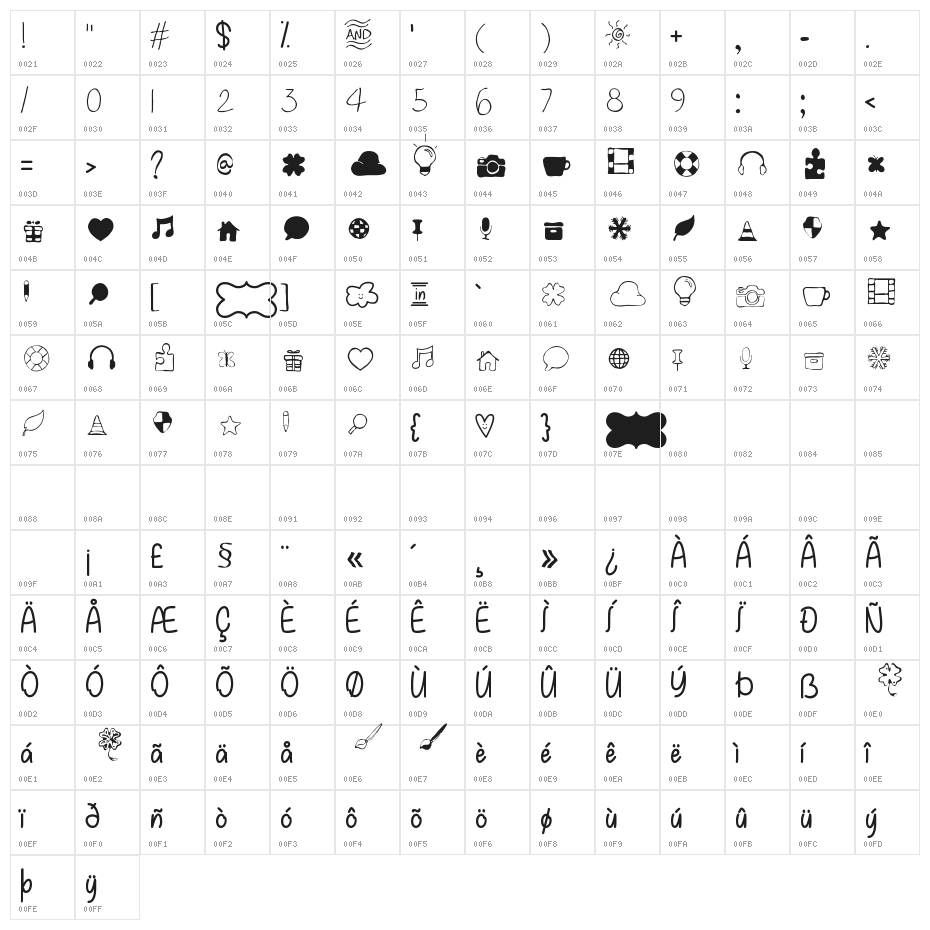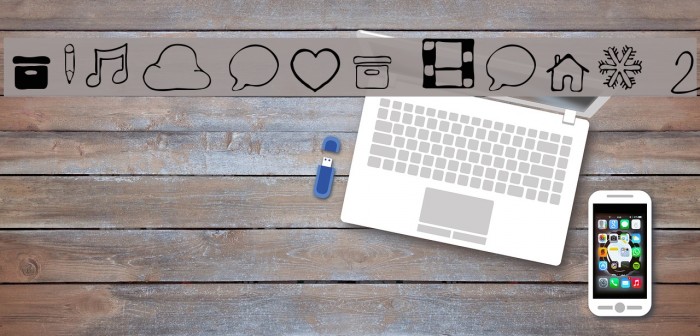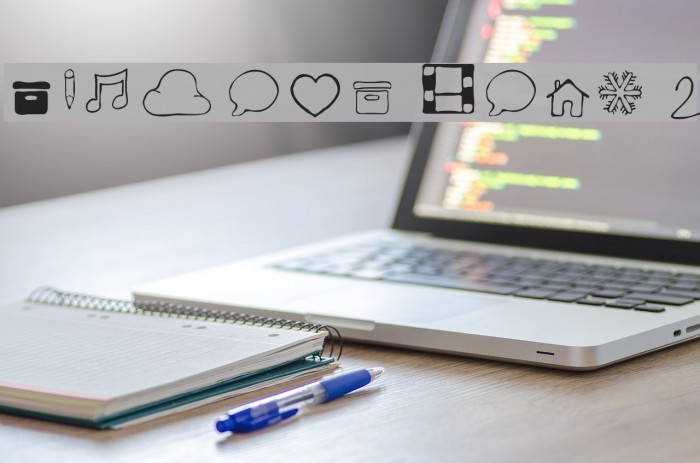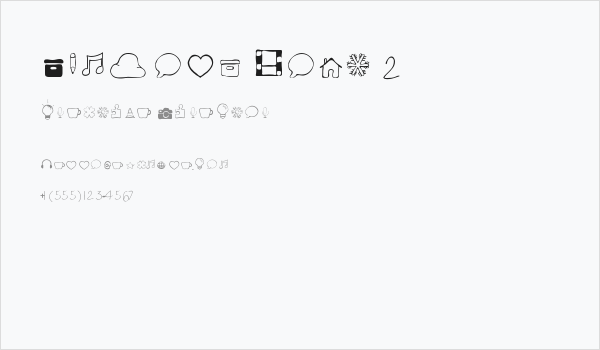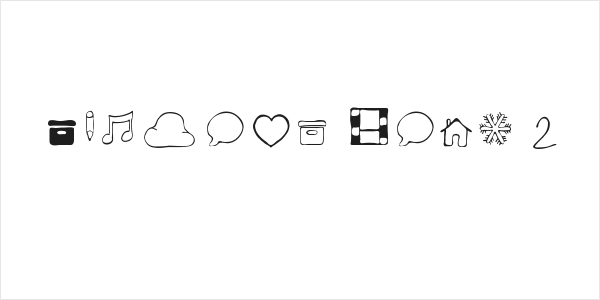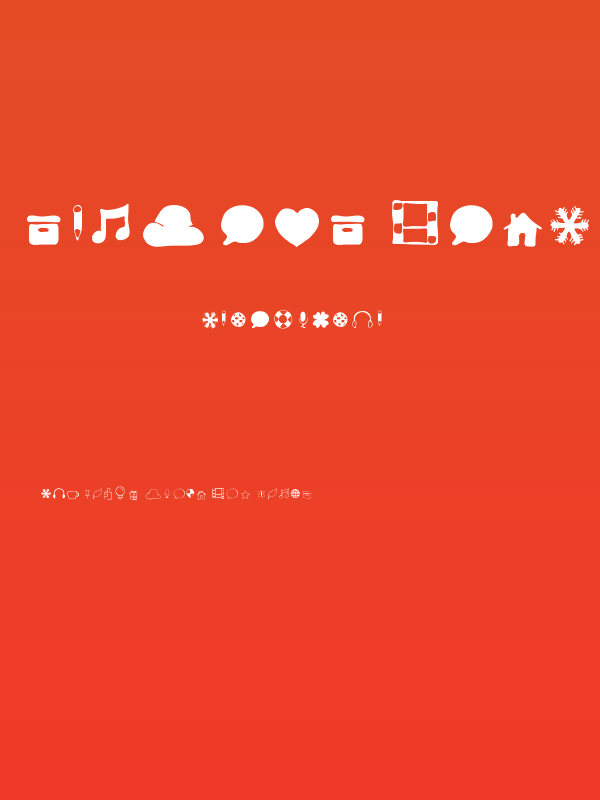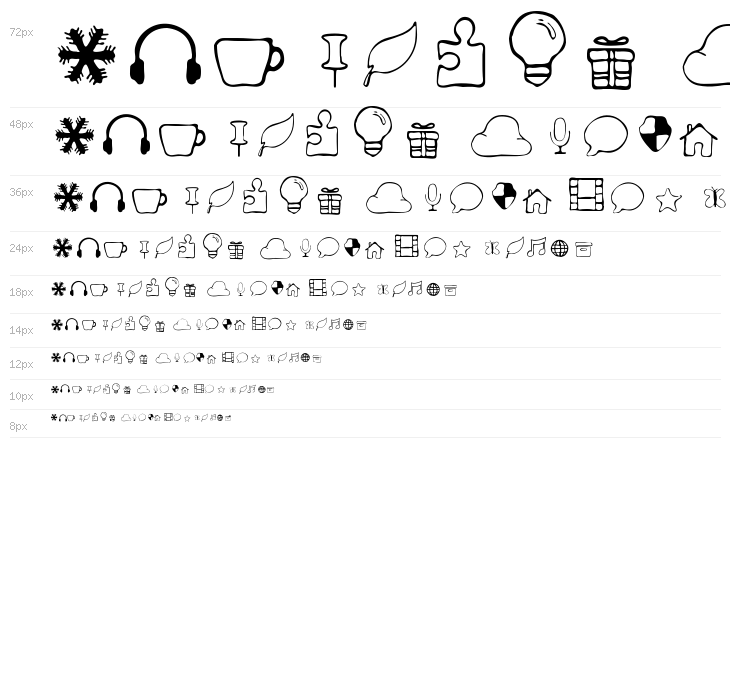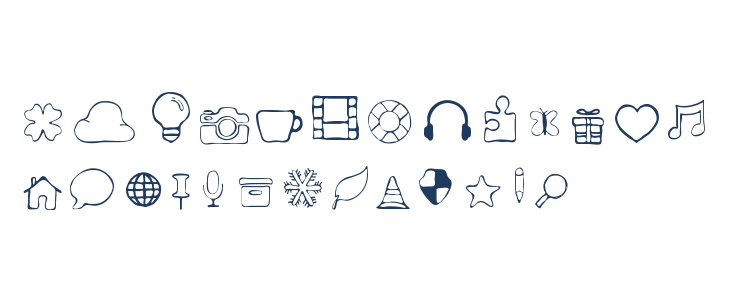
Symbols Font 2 Font
Symbols Font 2 Description
This font is a playful and creative collection of symbols and icons, featuring a variety of everyday objects and whimsical designs. The characters include items like cameras, coffee cups, headphones, and musical notes, each rendered in a bold, illustrative style. The numbers are hand-drawn with a casual, slightly uneven stroke, adding to the font's informal and artistic appeal. The special characters are similarly styled, with a mix of bold and thin lines that create a dynamic and engaging visual experience. This font is perfect for projects that require a fun and lively touch, offering a unique way to incorporate symbols into your designs.
| Overall Style | Playful, Artistic |
| Use Case | Logos, Posters, Invitations |
| Proposed Projects | Ideal for creative projects such as children's books, playful branding, event invitations, and educational materials. |